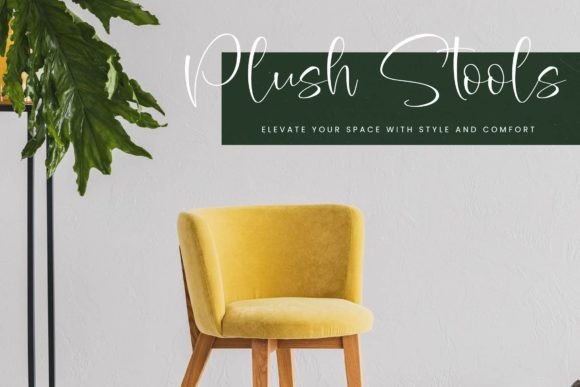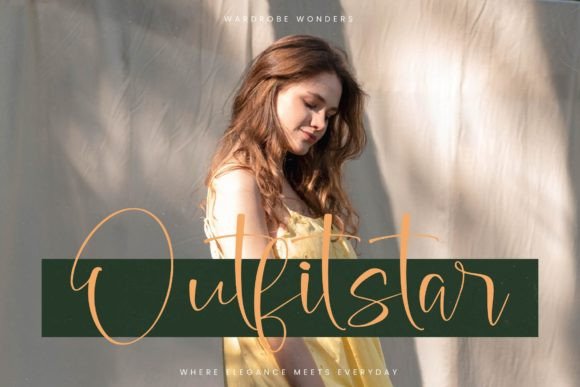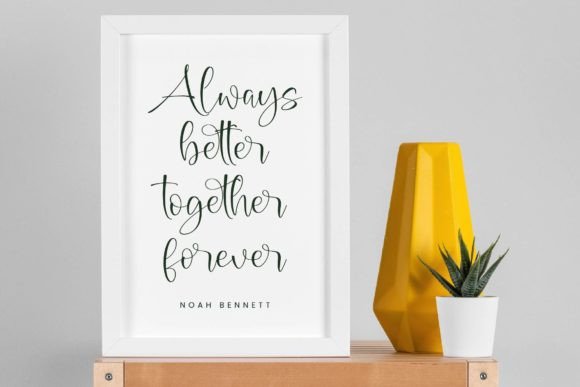
Introduction to Romantic Matched Font
As a designer, you’ve likely found yourself in the midst of a creative project, searching for the perfect font to bring your vision to life. You scroll through font libraries, trying to find that elusive combination of style and sophistication that will elevate your work from good to great. That’s where the Romantic Matched Font comes in – a modern and charming handwritten font that exudes elegance and personality.
With its graceful, flowing strokes and sophisticated character, the Romantic Matched Font is perfect for upscale invitations, personal branding, and chic editorial designs. Its high-quality design makes it a valuable resource for designers looking to add a touch of warmth and refinement to their projects.
Whether you’re working on a free download or a paid design project, the Romantic Matched Font is sure to impress with its transparent background and versatility. Say goodbye to bland designs and hello to a world of creative possibilities with this stunning font.
Key Features of Romantic Matched Font
- High-quality, elegant design perfect for creative projects and romantic themes.
- Unique characteristics include intricate details, cursive script, and ornate flourishes, adding a touch of romance and sophistication to any design.
- Perfect for creating invitations, wedding stationery, and other romantic-themed materials, or for adding a touch of elegance to any creative project.
Honest Review: Romantic Matched Font
- ✨ The Romantic Matched Font features high-quality, elegant letters that are perfect for romance-themed designs or weddings.
- ✨ The font comes with a transparent background, allowing for seamless integration into any design.
- ⚠️ The font only comes in a single style, which might limit its versatility in certain design projects.
- ⚠️ The font size can appear quite large, so be sure to scale it accordingly to achieve the desired effect.
Overall, I’m impressed with the Romantic Matched Font. While it may not be perfect, it’s a great choice for any design project that requires a touch of romance. Its high-quality design and transparent background make it a valuable addition to any designer’s toolkit.
Romantic Matched Font
The Romantic Matched Font is a beautiful, high-quality design resource perfect for your creative project. With its transparent background, you can easily combine it with any background image or color.
Getting the Most Out of Romantic Matched Font
For the best results, use the Romantic Matched Font in conjunction with a high-quality background image or color. Experiment with different font sizes and colors to create a unique and eye-catching design.
The Romantic Matched Font is perfect for:
- Valentine’s Day and anniversary cards
- Love-themed social media graphics
- Romantic blog posts and articles